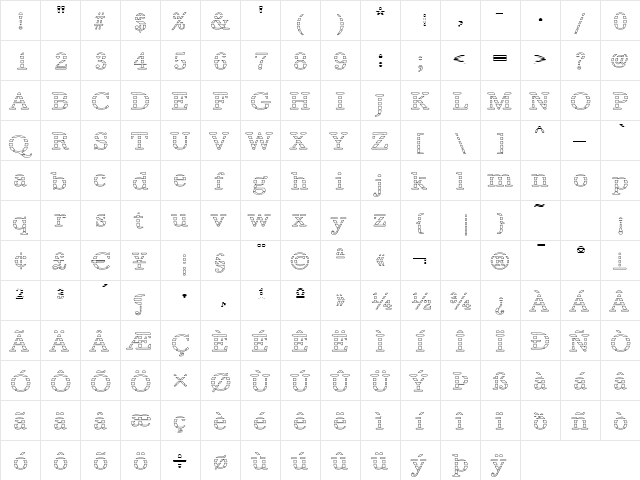
IrisBeckerGradoW Regular
Design Context for IrisBeckerGradoW Typeface
IrisBeckerGradoW offers clean, dependable letterforms without strong stylistic allegiance, making it a practical choice for designers who need flexibility.